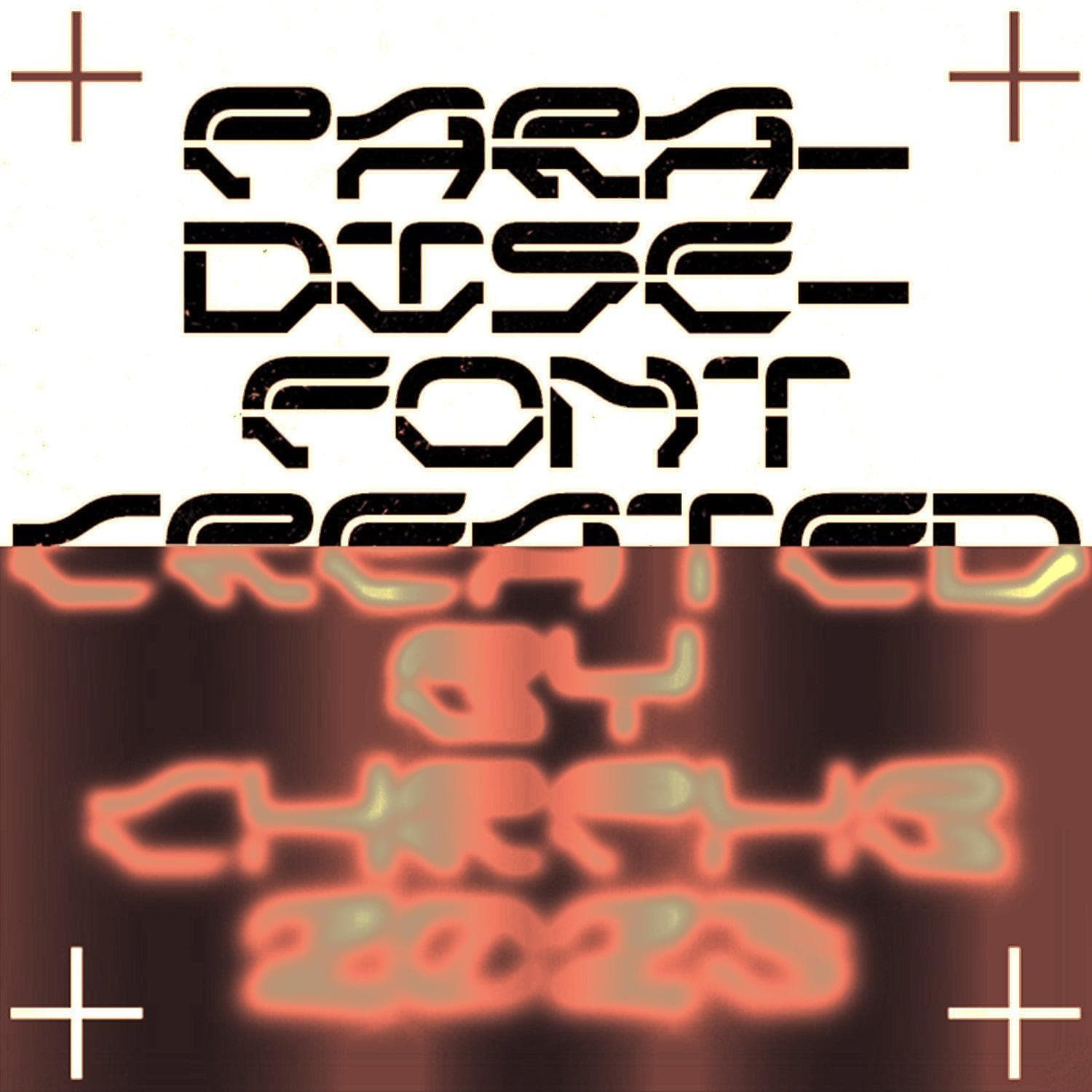
<p>Paradise is a display font born and designed for a science fiction world. With a mix of sharp and circular shapes, it creates a dystopian but, at the same time, harmonious effect. Great for futuristic graphics.</p>